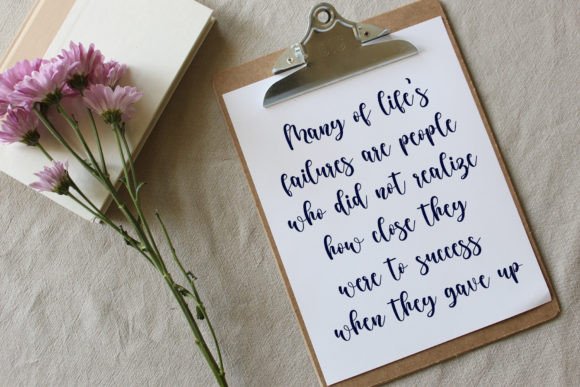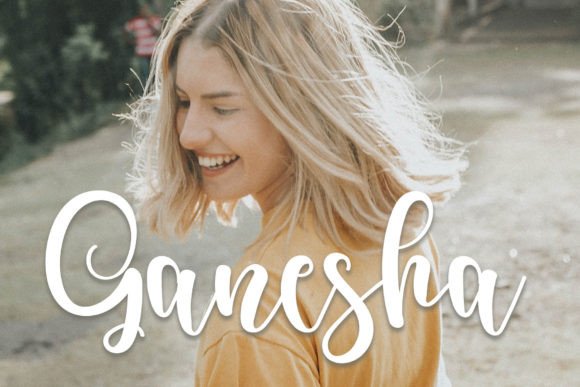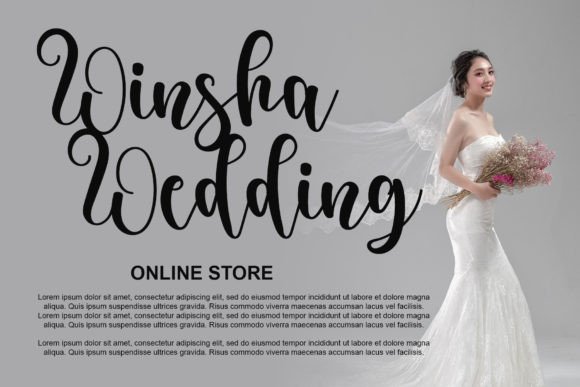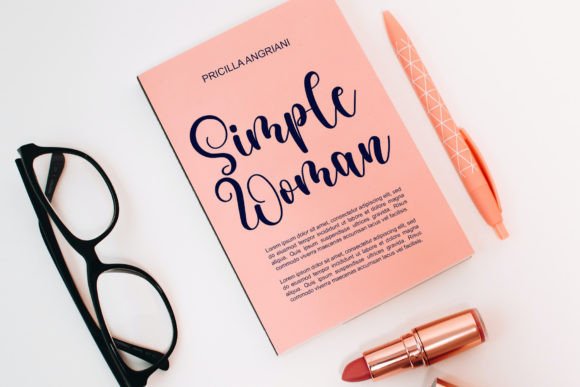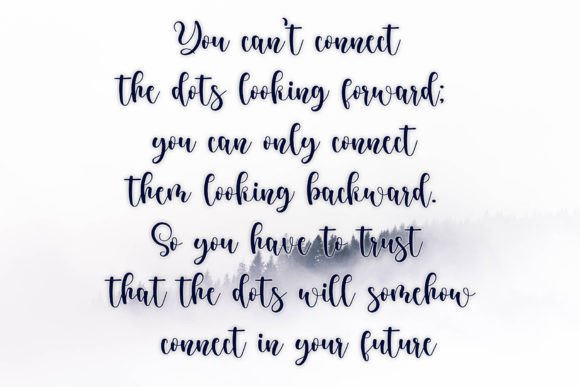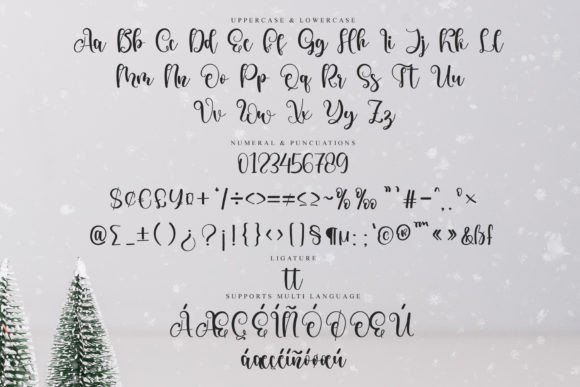
The Autowork Font: A Sweet and Beautiful Handwritten Delight
I’ll never forget the design project that led me to discover the Autowork font. I was working on a luxury branding campaign for a high-end car service, and I was struggling to find the perfect font to capture the essence of their premium offering. That’s when I stumbled upon Autowork, a sweet and beautiful handwritten font that would change the game for my project. In this article, I’ll share my experience with Autowork, its features, and how to make the most of it in your designs.
- ✨ Unique Character Dance: Autowork’s characters have a delightful dance along the baseline, adding a touch of elegance to any design.
- ✅ Luxury Feel: This font exudes luxury, making it perfect for high-end branding, packaging, and advertising projects.
- ✅ Versatility: Autowork works well for both digital and print applications, from social media graphics to business cards.
- ⚠️ Limited Use in Body Text: While Autowork is stunning in headlines and titles, it may not be the best choice for lengthy body text due to its decorative nature.
- ⚠️ Requires Attention to Kerning: As with any handwritten font, kerning can be a bit tricky; make sure to adjust it for optimal results.
- Take advantage of OpenType features, such as glyphs and stylistic alternates, to add more creativity to your text.
The Story Behind Autowork: Designer Inspiration
Autowork was created by a talented type designer who aimed to craft a font that would evoke the feeling of luxury and sophistication. Inspired by classic car designs and vintage typography, Autowork combines elegance with a touch of playfulness. The designer’s goal was to create a font that would make any design project stand out, and Autowork certainly delivers.
Q: What type of projects is Autowork best suited for?
A: Autowork is perfect for luxury branding, packaging, advertising, and any design project that requires a touch of elegance and sophistication.
Q: Is Autowork available in multiple languages?
A: Autowork currently supports English and other languages that use the Latin alphabet. Please check with the font designer or documentation for language support.